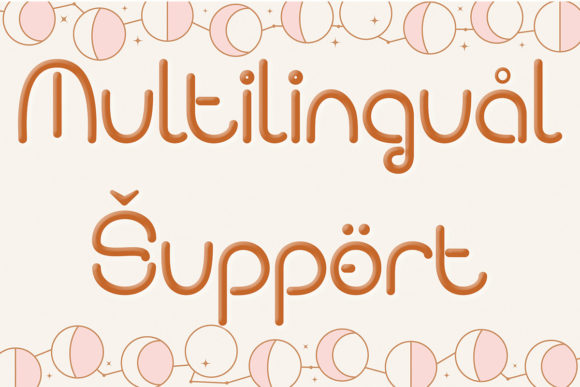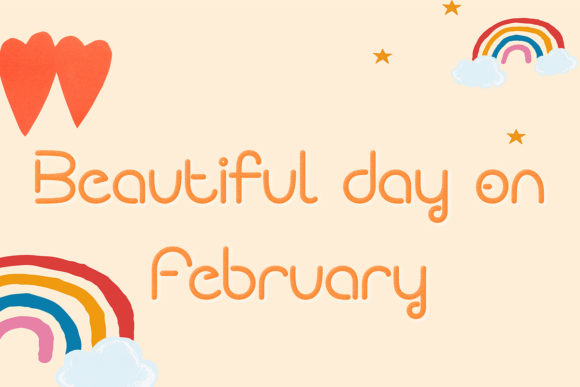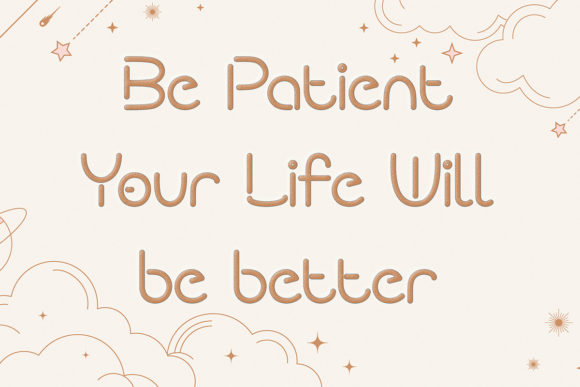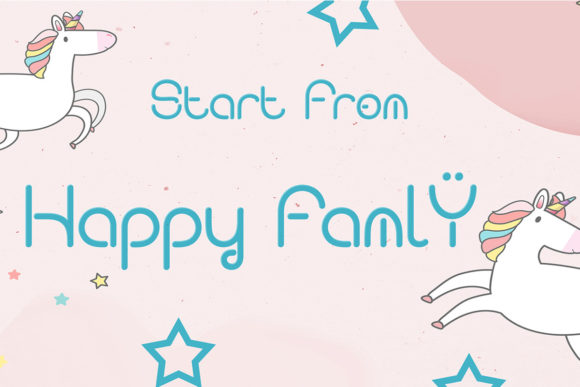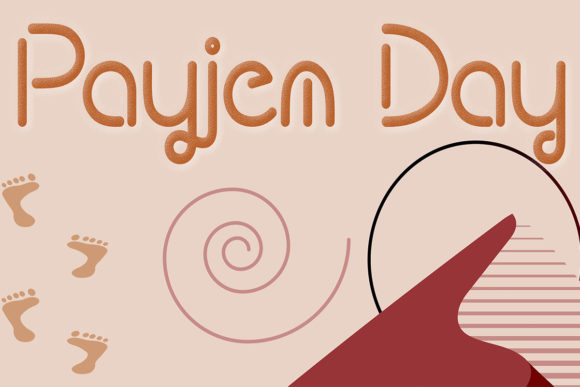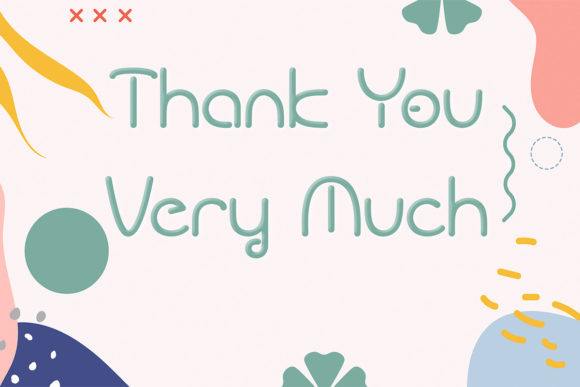
Introducing Familie Quotes Font: The Perfect Playful and Modern Display Font
Are you a designer or crafter looking for a font that can add a touch of playfulness and modernity to your creative projects? Look no further than Familie Quotes Font. This versatile font is designed to be perfect for a wide range of applications, from traditional media and kids’ projects to web designs, animations, posters, logos, and many other creative endeavors.
What Makes Familie Quotes Font So Special?
Familie Quotes Font is a display font that boasts a unique and playful style that’s sure to capture the attention of your audience. Its modern design makes it perfect for projects that require a fresh and contemporary look. The font’s versatility is one of its standout features, allowing you to use it across various mediums and platforms.
Key Features of Familie Quotes Font
- Playful and Modern Design: Familie Quotes Font features a playful and modern design that’s perfect for creating eye-catching headlines, titles, and quotes.
- Highly Versatile: This font is suitable for a wide range of creative projects, including traditional media, kids’ projects, web designs, animations, posters, logos, and more.
- Easily Readable: Despite its playful design, Familie Quotes Font is highly readable, making it perfect for use in both digital and print materials.
Use Cases for Familie Quotes Font
Familie Quotes Font is perfect for a wide range of creative projects, including:
- Kids’ Projects: The font’s playful design makes it perfect for kids’ projects, such as children’s books, educational materials, and kids’ websites.
- Web Designs: Familie Quotes Font is highly suitable for web designs, including website headers, titles, and quotes.
- Animations and Videos: The font’s modern design makes it perfect for use in animations and videos, including explainer videos, cartoons, and more.
- Posters and Flyers: Familie Quotes Font is ideal for creating eye-catching posters and flyers for events, promotions, and more.
- Logos and Branding: The font’s unique design makes it perfect for use in logos and branding materials, including business cards, letterheads, and more.
Why Choose Familie Quotes Font?
- Unique Design: Familie Quotes Font features a unique and playful design that’s sure to set your project apart from the rest.
- Highly Versatile: The font’s versatility makes it perfect for use across various mediums and platforms.
In conclusion, Familie Quotes Font is a playful and modern display font that’s perfect for a wide range of creative projects. Its unique design, versatility, and readability make it an ideal choice for designers and crafters looking to add a touch of playfulness and modernity to their work. Whether you’re working on a kids’ project, web design, animation, poster, logo, or any other creative endeavor, Familie Quotes Font is sure to be a great choice.